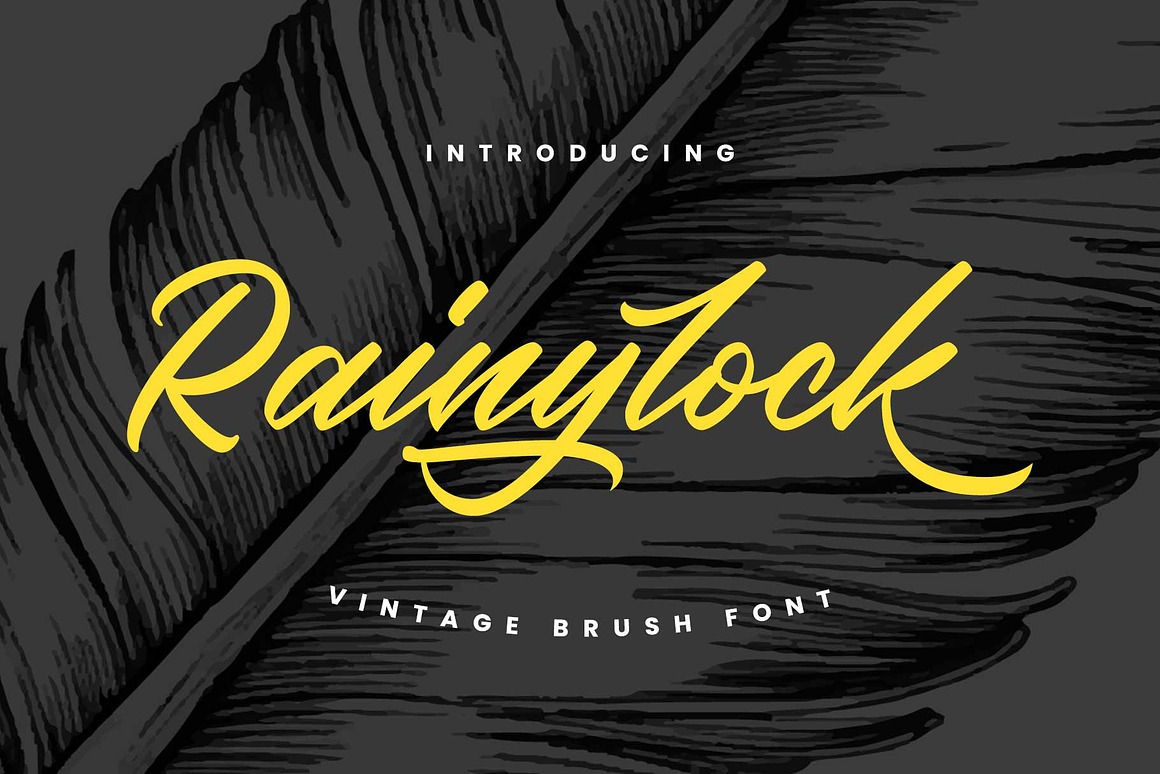
Rainylock Font
About Rainylock
Rainylock is a handwritten Script brush font, crafted in a quick, handwritten style and enhanced with a variety of swashes to add more typographic flair. It includes 14 sets of swashes that you can play with!